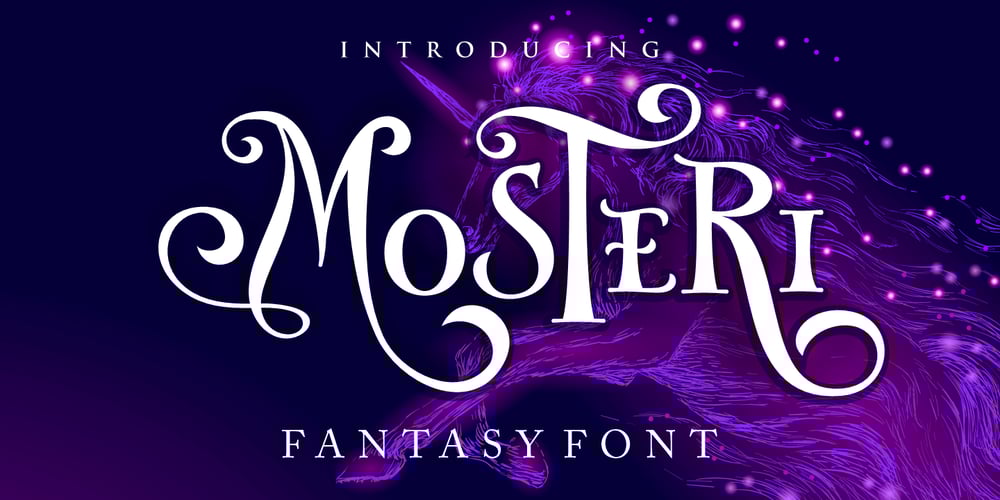
Mosteri Font Family was designed by Burhan Afif and published by HansCo. Mosteri contains 2 styles and family package options. Mosteri is a gorgeous and elegant display font with an incredibly delicate feel. It features gorgeous and mysterious swashes and ligatures that make this script incredibly versatile. Whether you’re looking for fonts for Instagram, calligraphy scripts, or magic- or wizard-themed projects, Mosteri will turn any creative idea into a true piece of art. This font will look outstanding in any context, whether it’s being used on busy backgrounds or as a standalone headline!Comes with a full uppercase, lowercase, numbers and punctuation + standard multilingual support. It’s great for branding, logo designs, lettering, logotype, craft, posters, packaging and much more. We recommend using Adobe Illustrator or Photoshop.Tutorial how to Install & use Alternate / Special Character : https://hanscostudio.com/tutorial/Enjoy!